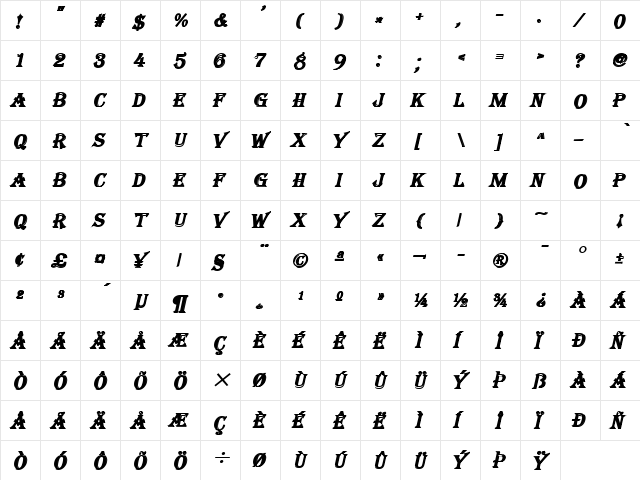
Tangiers BoldItalic
Design Context for Tangiers Typeface
Tangiers offers clean, dependable letterforms without strong stylistic allegiance, making it a practical choice for designers who need flexibility. The dynamic lean of this cut emphasises speed and emphasis in any layout. The heavy weight commands attention and anchors typographic hierarchies.
Pro Tip: Use Tangiers for emphasis, pull quotes, and subheadings where its slanted energy can add rhythm to the layout.